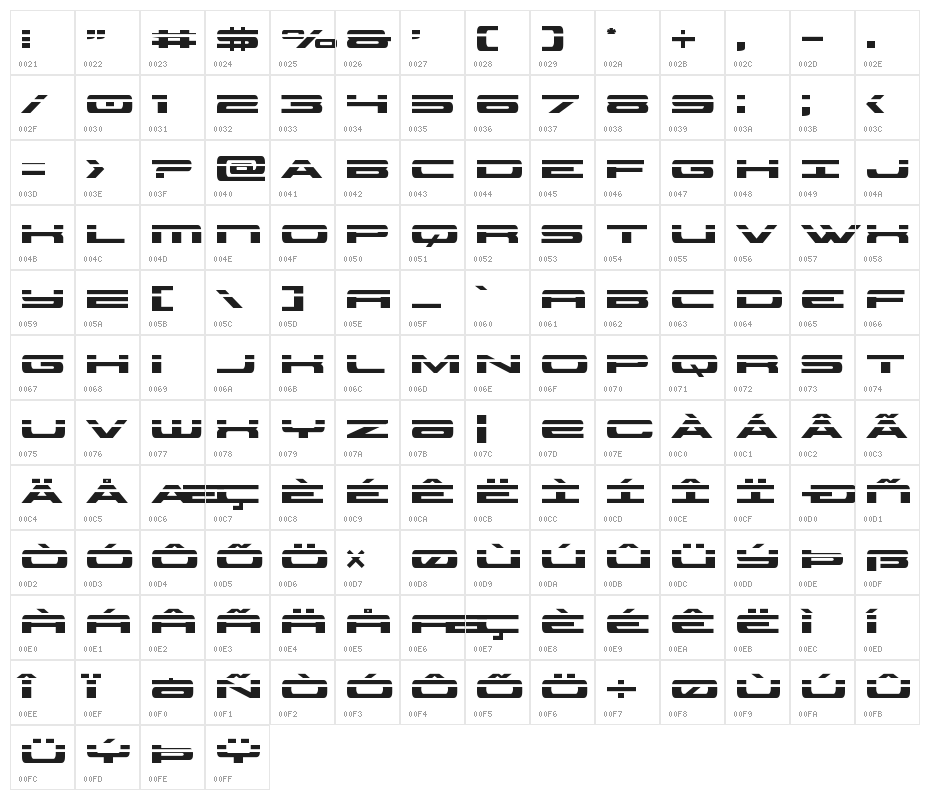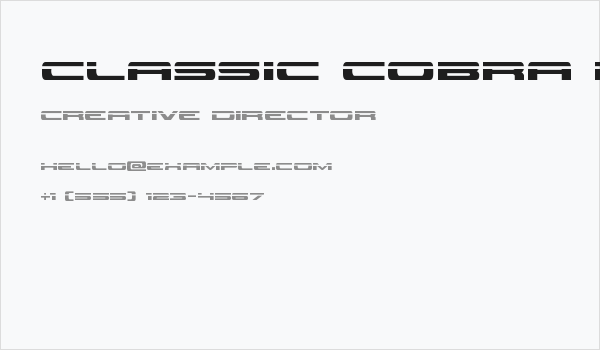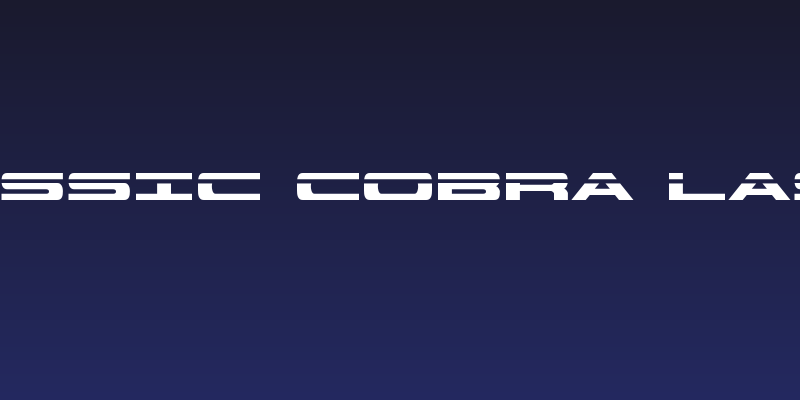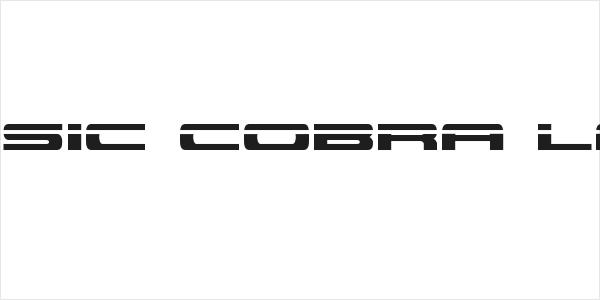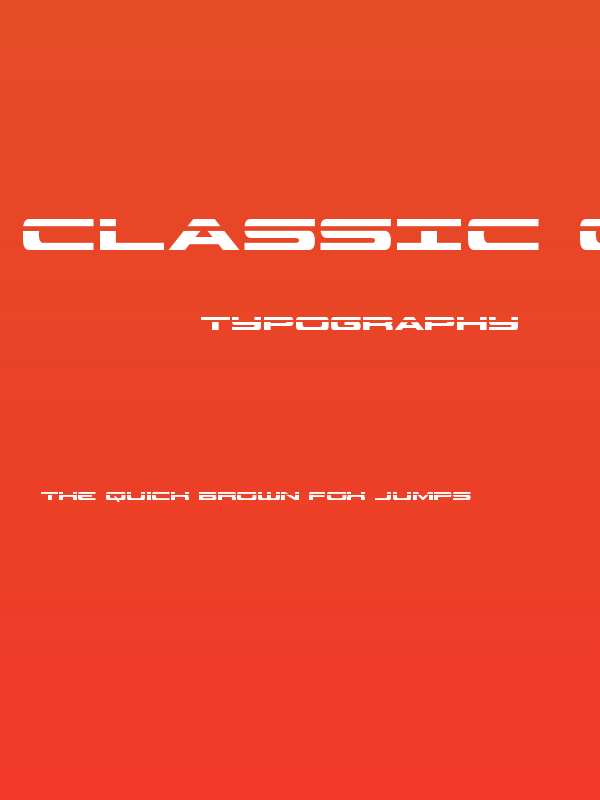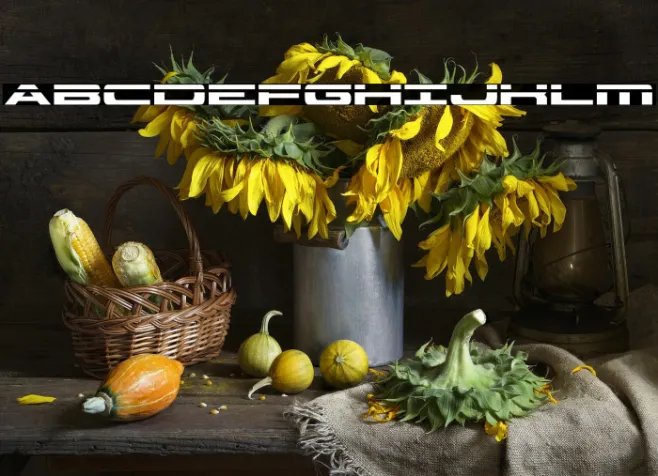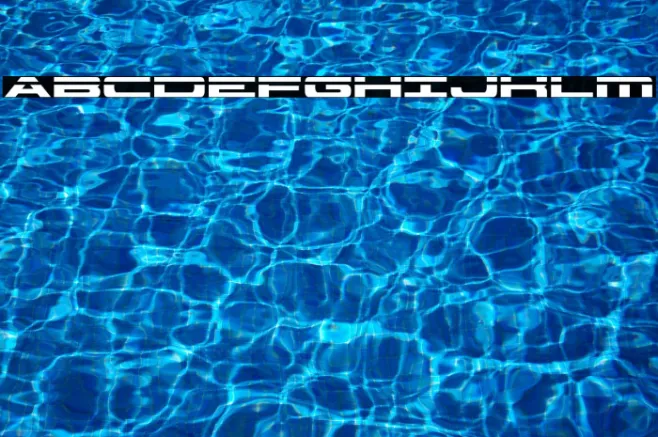
Classic Cobra Laser Font
Classic Cobra Laser Description
This font features a futuristic and bold design with a distinct geometric style. The characters are constructed with sharp angles and clean lines, giving it a modern and technological appearance. The uppercase and lowercase letters maintain a consistent width, while the numbers and special characters complement the overall aesthetic. The font's unique cutouts and angular shapes make it stand out, ideal for projects that require a strong visual impact.